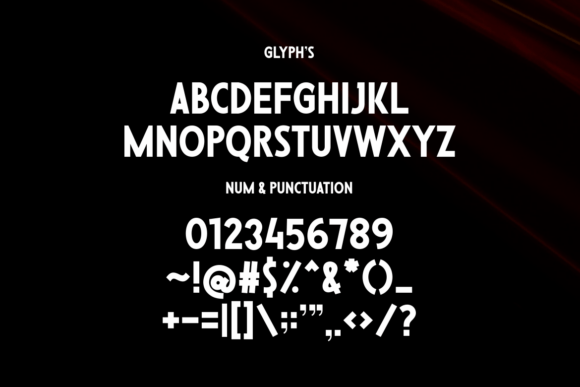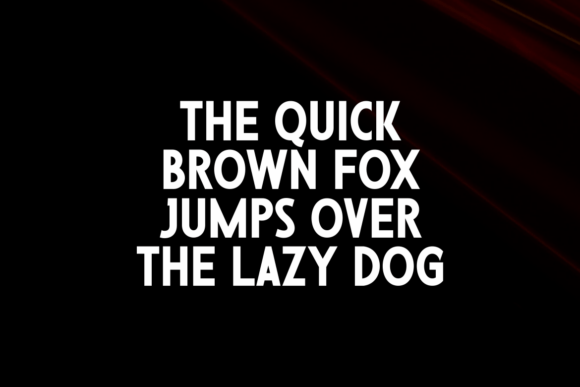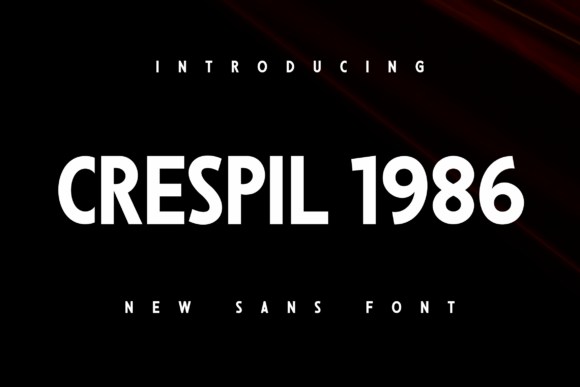
Introducing Crespil 1986: The Ultimate Font for Bold and Exclusive Designs
In the world of design, typography plays a crucial role in capturing the attention of your audience and conveying your message effectively. With numerous fonts available, finding the perfect one that stands out from the crowd can be a daunting task. However, if you’re looking for a typeface that can elevate your designs with a bold and exclusive touch, look no further than Crespil 1986.
A Font Designed for Impact
Crespil 1986 is a carefully crafted font, specifically designed to make your designs pop with a unique and artistic flair. Its bold and captivating style makes it an ideal choice for creating gripping posters, captivating covers, brilliant banners, and tantalizing titles that are sure to seize every viewer’s eye. Whether you’re a designer, craftsperson, or simply someone who appreciates great typography, Crespil 1986 is an indispensable addition to your collection.
Unique Artistic Flair
One of the standout features of Crespil 1986 is its distinct stylization of letters, particularly B, C, G, P, R, and S. These letters have been carefully crafted to provide a creative boost to your visual ventures, setting your designs apart from the rest. The font’s unique artistic flair is a perfect blend of vintage charm and contemporary versatility, making it an excellent choice for designers on the quest for something exceptional.
Vintage Charm Meets Contemporary Versatility
Crespil 1986 exudes an intriguing blend of vintage charm and contemporary versatility, making it a versatile font that can be used in a wide range of design applications. Whether you’re working on a retro-inspired project or a modern design, Crespil 1986 adapts seamlessly, providing a unique and captivating visual identity. Its ability to blend in with various design styles makes it an excellent addition to any designer’s toolkit.
Seamless Integration Across Platforms
Crespil 1986 is an excellent choice for designers and crafters looking to add a bold and exclusive touch to their work. Whether you’re creating posters, flyers, brochures, or social media graphics, this font is sure to make your designs stand out. Its unique artistic flair and captivating style make it an ideal choice for:
- Brochures and catalogs
- Packaging and labels
| Author | Monoletter |
In conclusion, Crespil 1986 is a game-changing font that can elevate your designs with a bold and exclusive touch. Its unique artistic flair, captivating style, and versatility make it an indispensable addition to any designer’s collection. With its seamless integration across platforms and wide range of design applications, Crespil 1986 is the perfect choice for designers and crafters looking to make a lasting impression. So why settle for ordinary fonts when you can make a statement with Crespil 1986?
Get ready to take your designs to the next level with Crespil 1986 – the ultimate font for bold and exclusive designs.